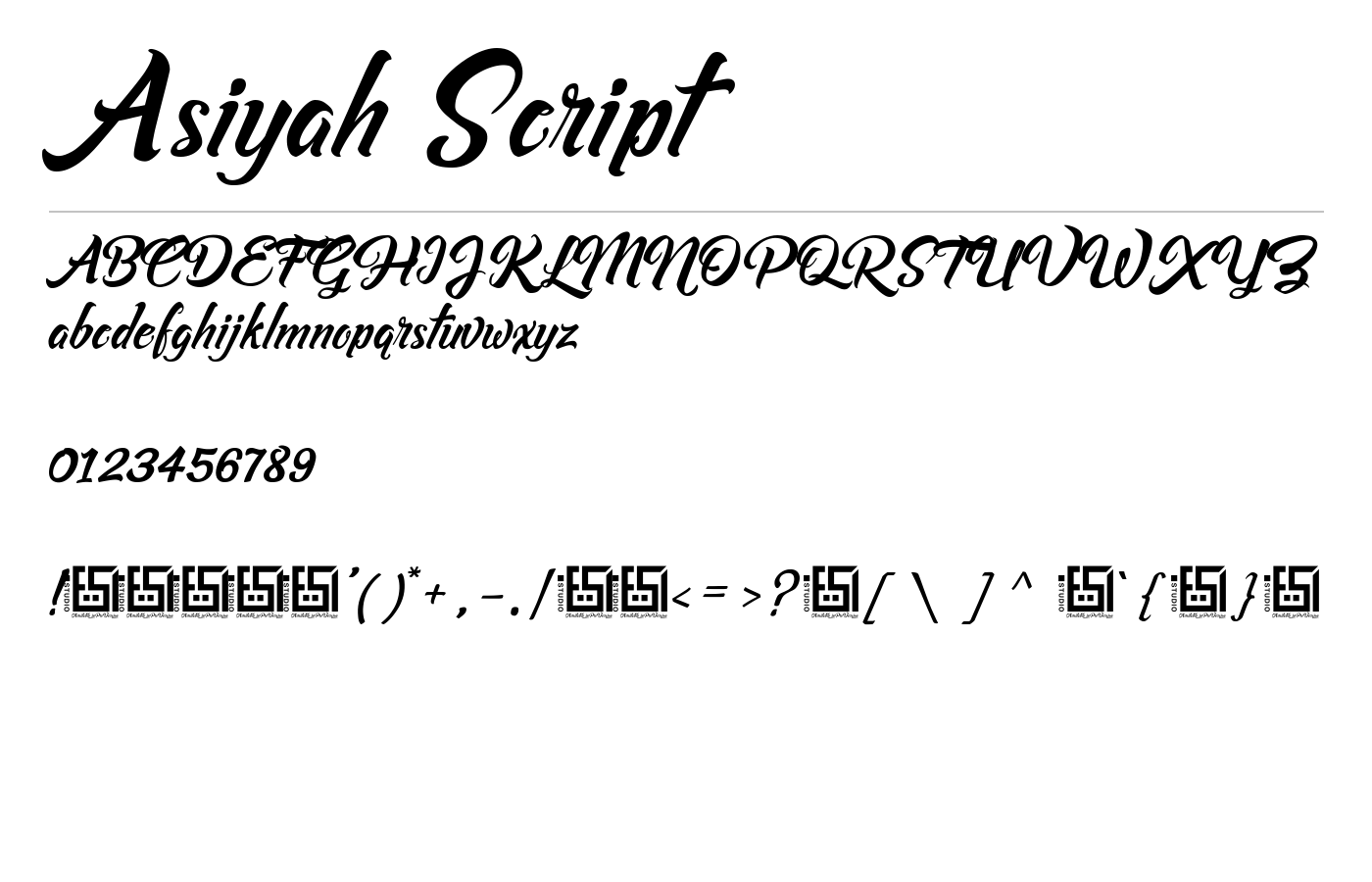
Asiyah Script is a stylish and elegant script font characterized by its flowing, calligraphic strokes and moderate contrast, giving it a graceful yet readable appearance. Its slightly cursive letterforms with distinctive swashes and smooth curves make it perfect for invitations, branding, and headlines where a touch of sophistication and personality is desired. This font works well in fashion, luxury, and creative contexts, adding a refined and artistic flair to any design.
Asiyah Script Font